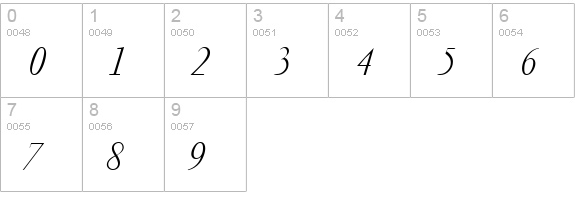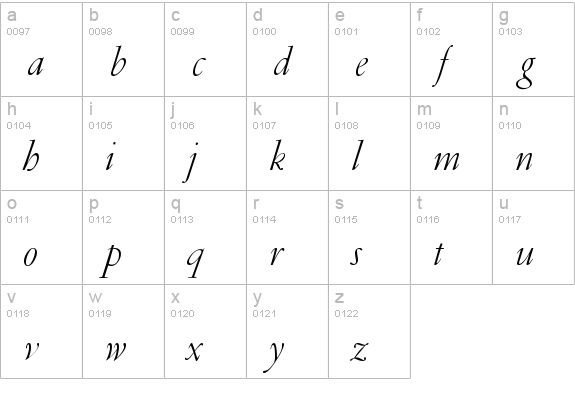
PFGaramond Classic Italic is a distinctive, italic variant in the PFGaramond typeface family \xE2\x80\x94 well suited to design and typography projects.
PFGaramond Classic Italic font is a timeless and elegant typeface that exudes sophistication and charm. Its graceful curves and slanted angles create a sense of movement and fluidity, making it perfect for adding a touch of class to any design project. This italic variant of the PFGaramond Classic font family brings a sense of dynamism and flair to your text, making it ideal for conveying a sense of elegance and refinement. The PFGaramond Classic Italic font is not only visually appealing but also highly versatile, making it suitable for a wide range of applications, from editorial design to branding and advertising. Whether you're looking to add a touch of sophistication to your wedding invitations or create a polished look for your business cards, this font is sure to impress. Best of all, the PFGaramond Classic Italic font is available for free download at FontsMarket.com. This means that you can easily access and use this beautiful typeface in your projects without any cost. Don't miss out on the opportunity to enhance your designs with the timeless beauty of PFGaramond Classic Italic font - download it today and elevate your typography game!